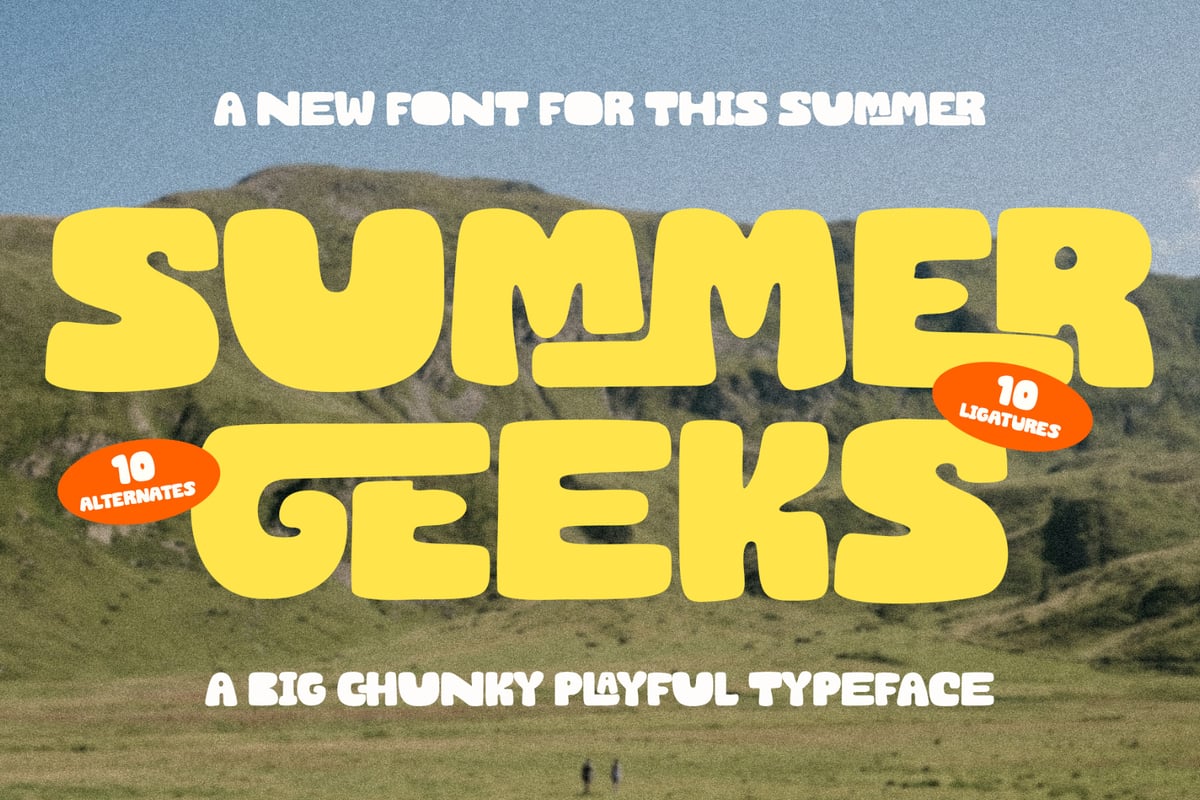
Free Summer Geeks - Big Chunky Playful Typeface
Big, bold, and bursting with retro summer energy — Summer Geeks is the chunky display font your designs have been waiting for.
Summer Geeks is a heavy, cheerful typeface built to give your creative projects a fun, vibrant, and nostalgic personality. Thick letterforms with smooth, rounded curves deliver an instant pop of charm to any layout — from posters to packaging to social media graphics.
This typeface is ideal for:
- Summer event posters and banners
- Packaging and apparel design
- T-shirt prints and merchandise
- Social media graphics and branding
- Sticker designs and labels
- Magazine covers and bold headlines
With 10 stylistic alternates, 10 ligatures, and multilingual language support, Summer Geeks gives you the typographic flexibility to craft eye-catching, memorable designs with ease — in both print and digital formats.
- 10 Stylistic Alternates & 10 Ligatures